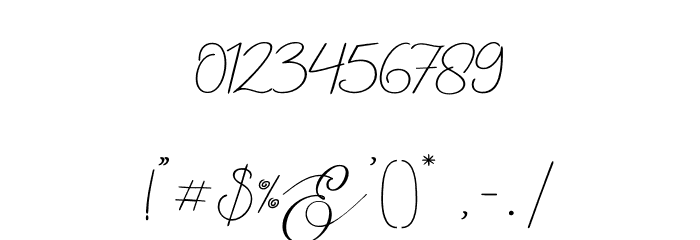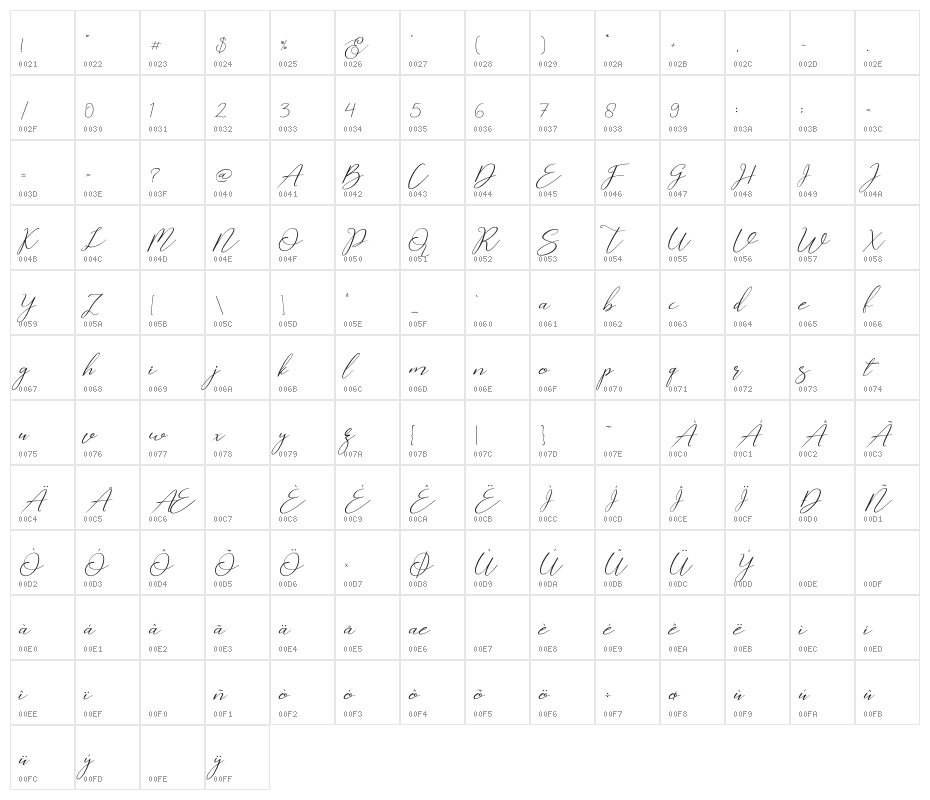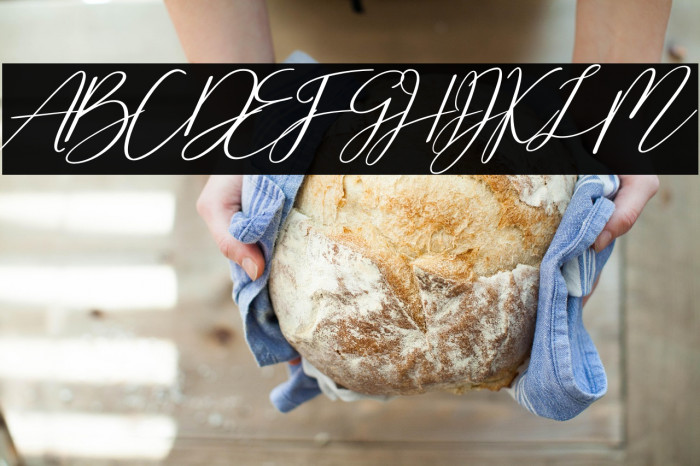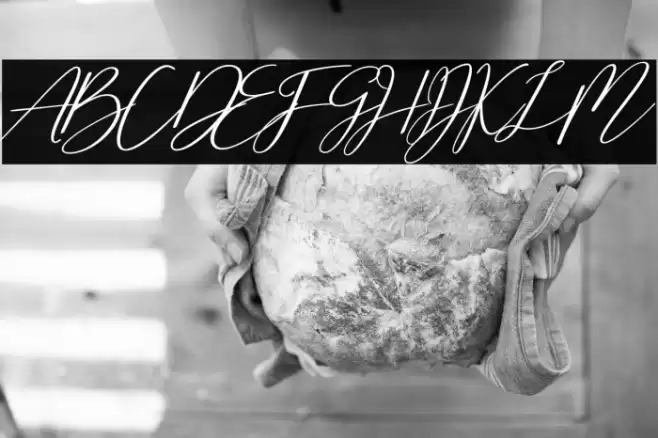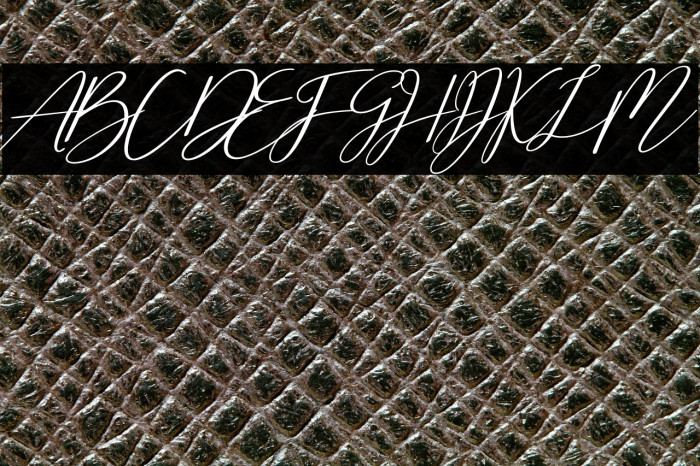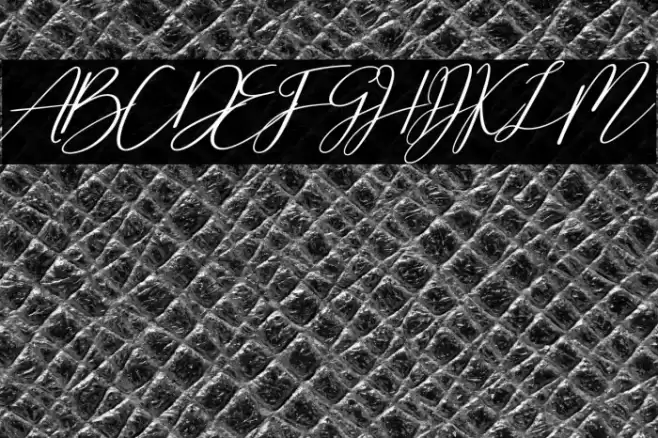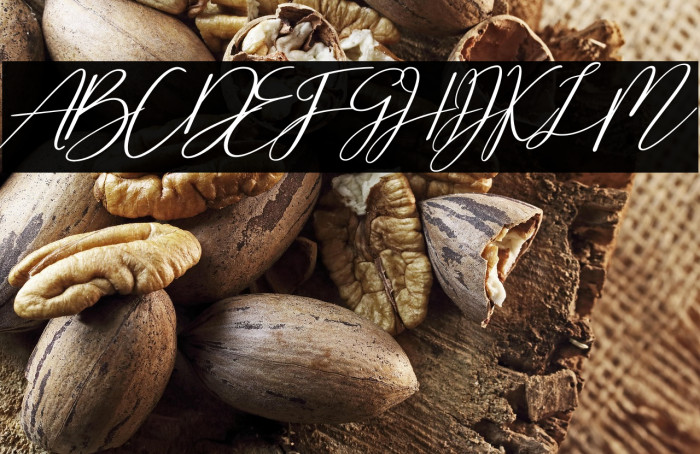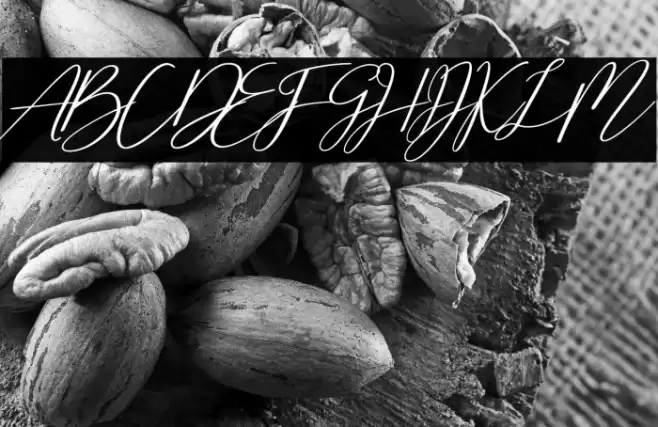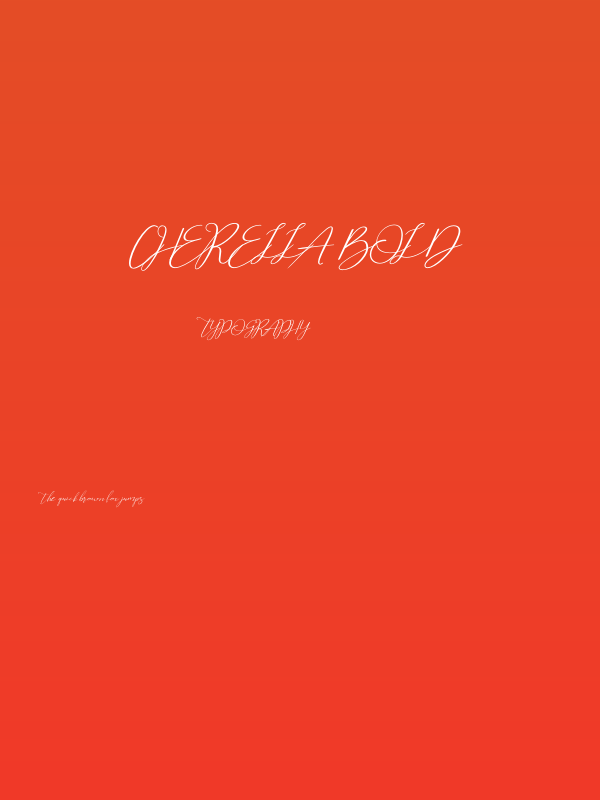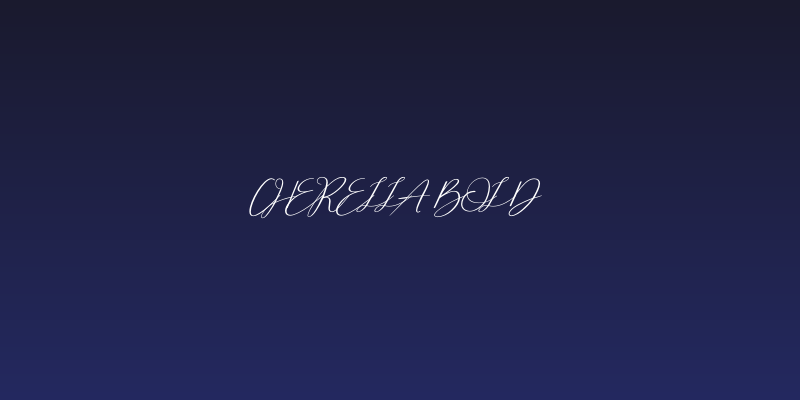
Cherella Bold Font
Cherella Bold Description
This font is an elegant and flowing script that exudes a sense of sophistication and grace. The characters are intricately designed with sweeping curves and delicate lines, creating a sense of movement and fluidity. The uppercase letters are particularly ornate, with elaborate loops and flourishes that add a touch of drama. The lowercase letters maintain a consistent style, offering a harmonious balance between readability and artistic flair. The numerals and special characters are crafted with the same attention to detail, ensuring a cohesive look across all text elements. This font is ideal for projects that require a touch of elegance and refinement.
| Proposed Projects | Wedding invitations, luxury branding, elegant stationery, and high-end product packaging. |